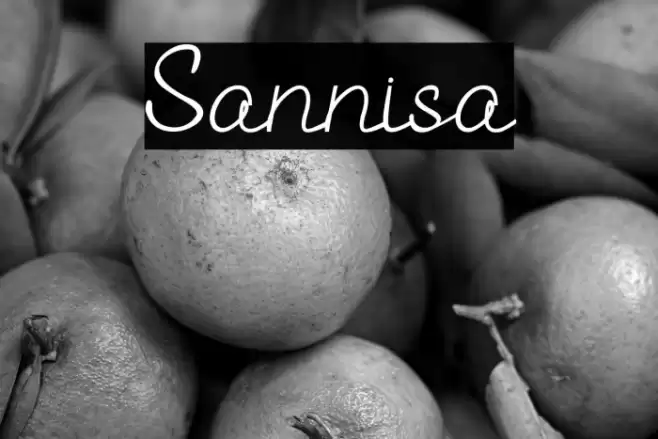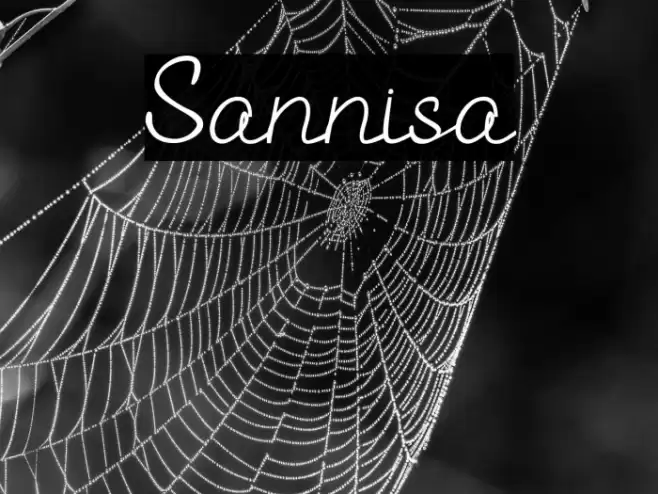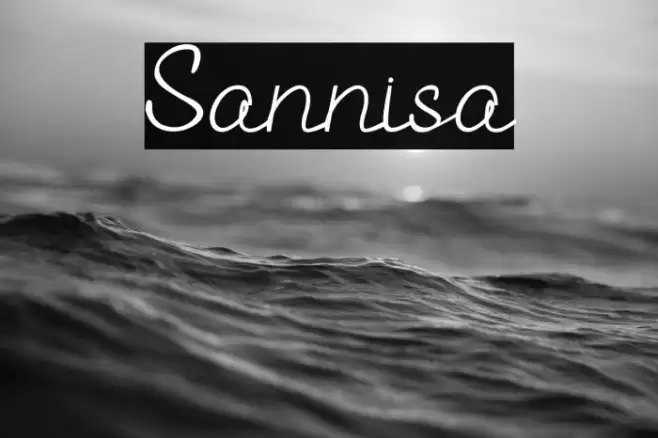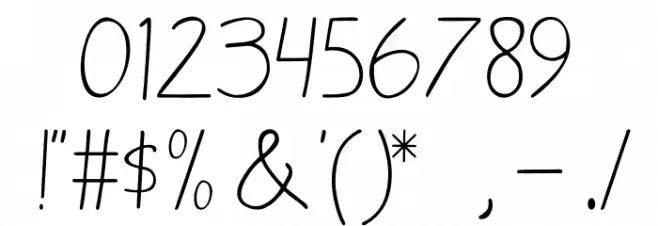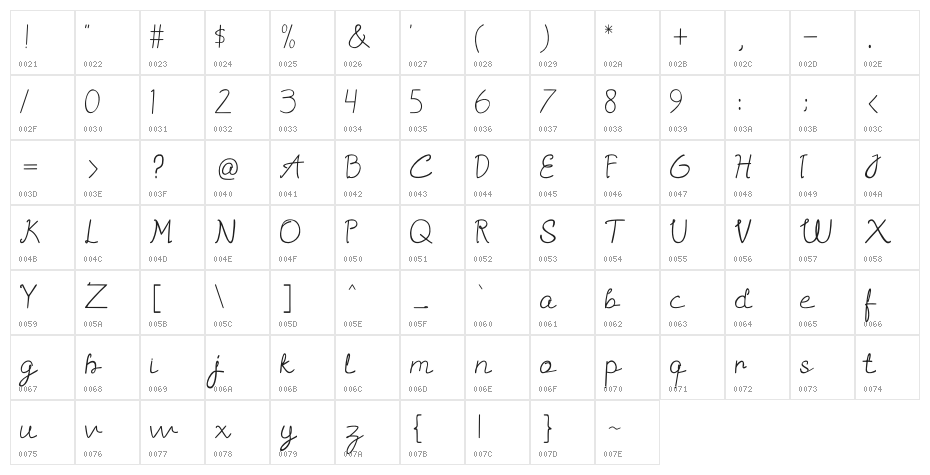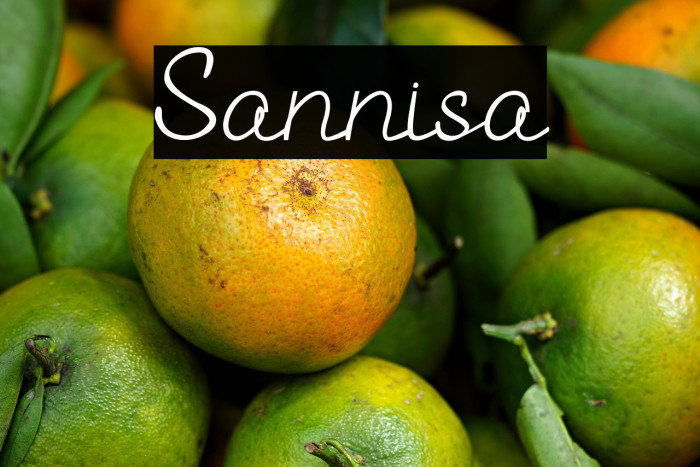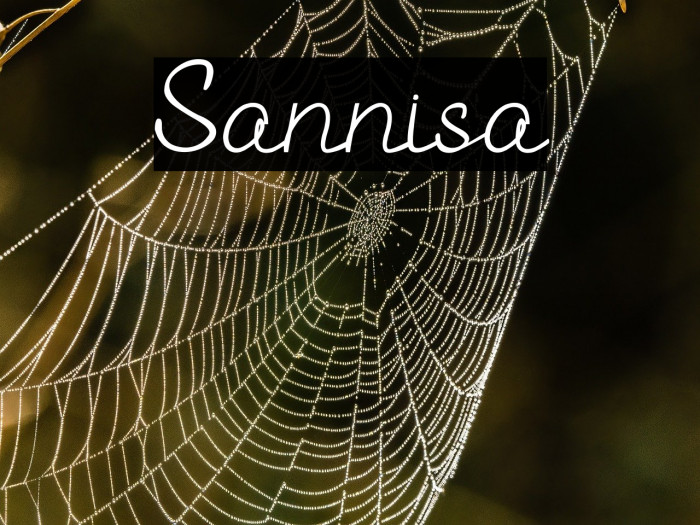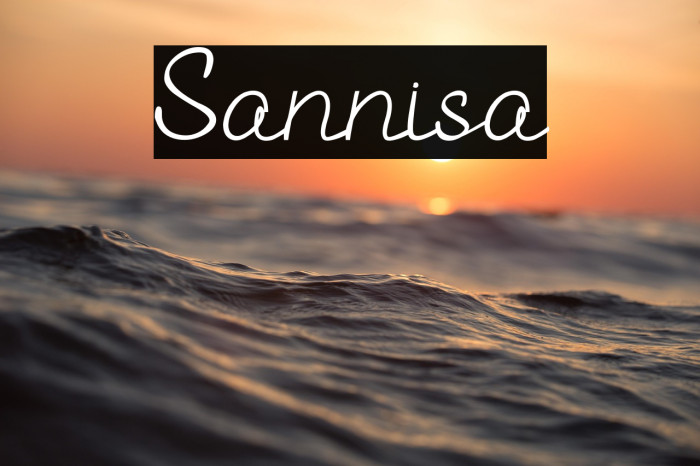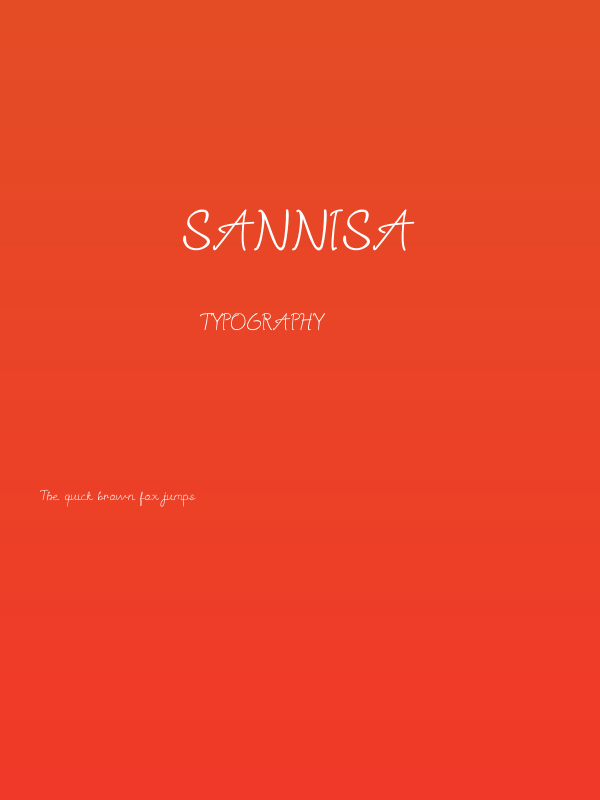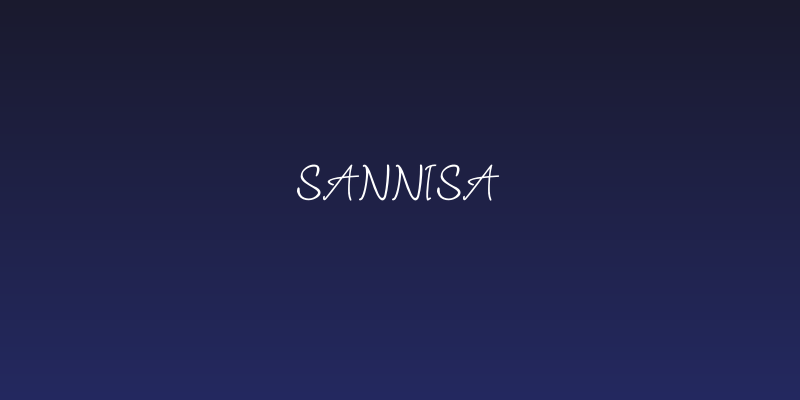
Sannisa Font
Sannisa Description
This font features a lively and flowing script style, characterized by its smooth, continuous strokes and elegant curves. The uppercase letters are tall and slightly slanted, giving a sense of movement and grace. The lowercase letters maintain a consistent flow, with some letters featuring loops and swashes that enhance the overall aesthetic. The numerals are clear and legible, maintaining the same fluid style as the alphabet. Special characters are thoughtfully designed to complement the script, adding versatility to the font. This font exudes a sense of elegance and sophistication, making it suitable for a variety of creative applications.
A lively and elegant script font with smooth, flowing strokes from Regular fonts.
- Proposed Projects: Ideal for wedding invitations, greeting cards, branding, and elegant packaging designs.
- Overall Style: Elegant
- Use Case: Logos, Invitations, Greeting Cards